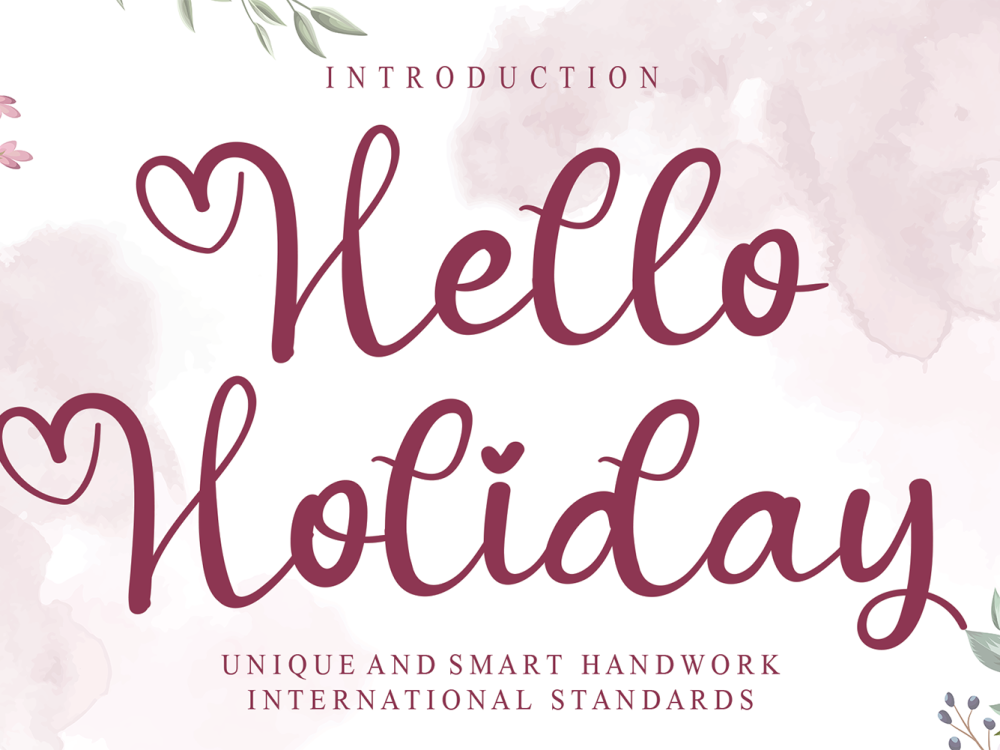
Hello Holiday Free Font
Hello Holiday Free Font arrives as a charming and gentle handwritten font. With its delicate and cheerful demeanor, this font becomes a perfect companion for crafting wedding invitations, cards, or any creative project in search of a romantic and personalized flourish. If you like it don’t forget to check out the full version.